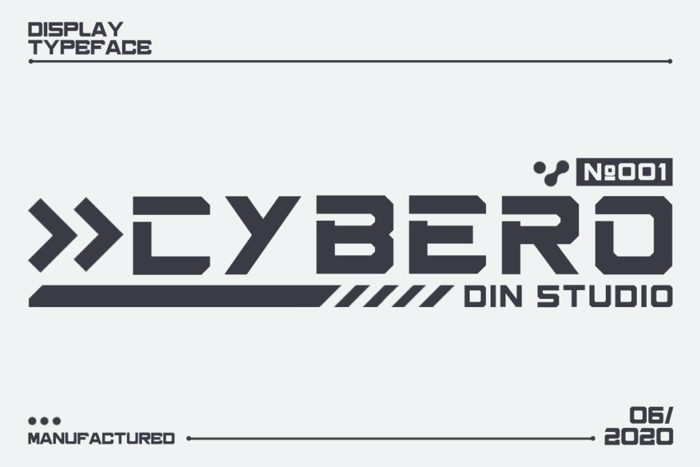
cybero Font
Product Description :
Cybero is a bold and authentic sports font showing abstract shapes in all of their eclectic beauty. This font will look truly outstanding in a wide range of contexts. The font is suitable for any projects, such as social media campaigns, brandings, logotypes, advertisements, etc.